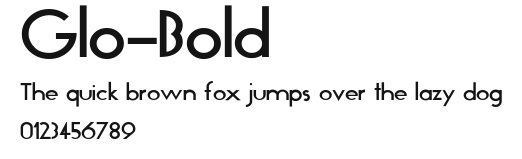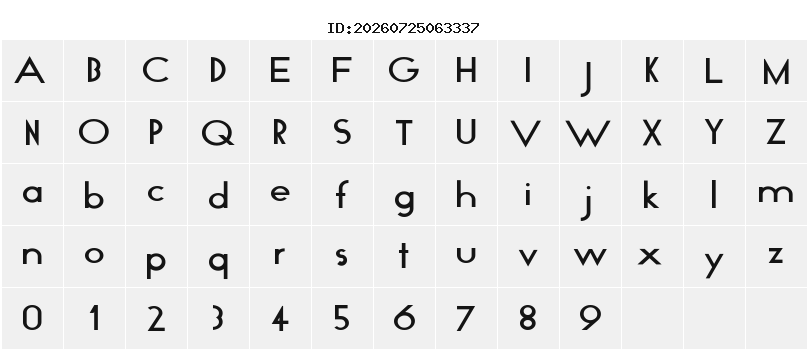
About Glo-Bold.ttf
Glo-Bold.ttf is a modern, elegant sans-serif font designed for ultimate readability and visual harmony. Perfect for branding, headlines, web design, and print materials.